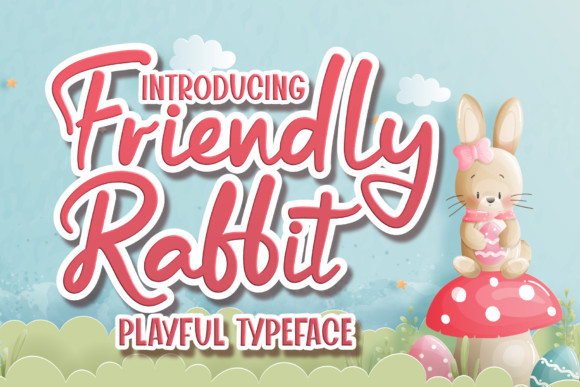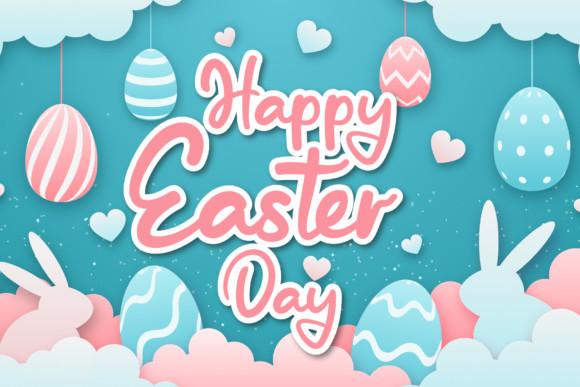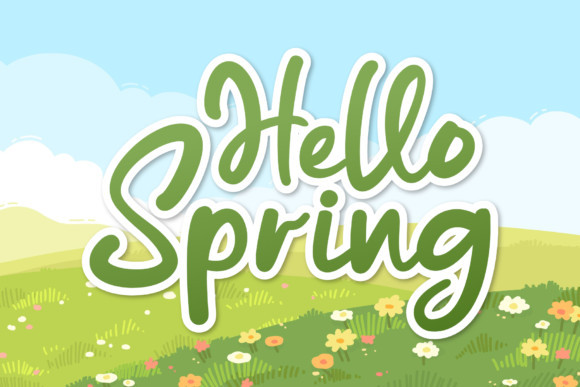
Friendly Rabbit Font
Friendly Rabbit is a stylish and playful brushed handwritten font. Whether you use it for cartoon related designs, children games or just any creation that requires a lovely touch, this font will be an amazing choice.